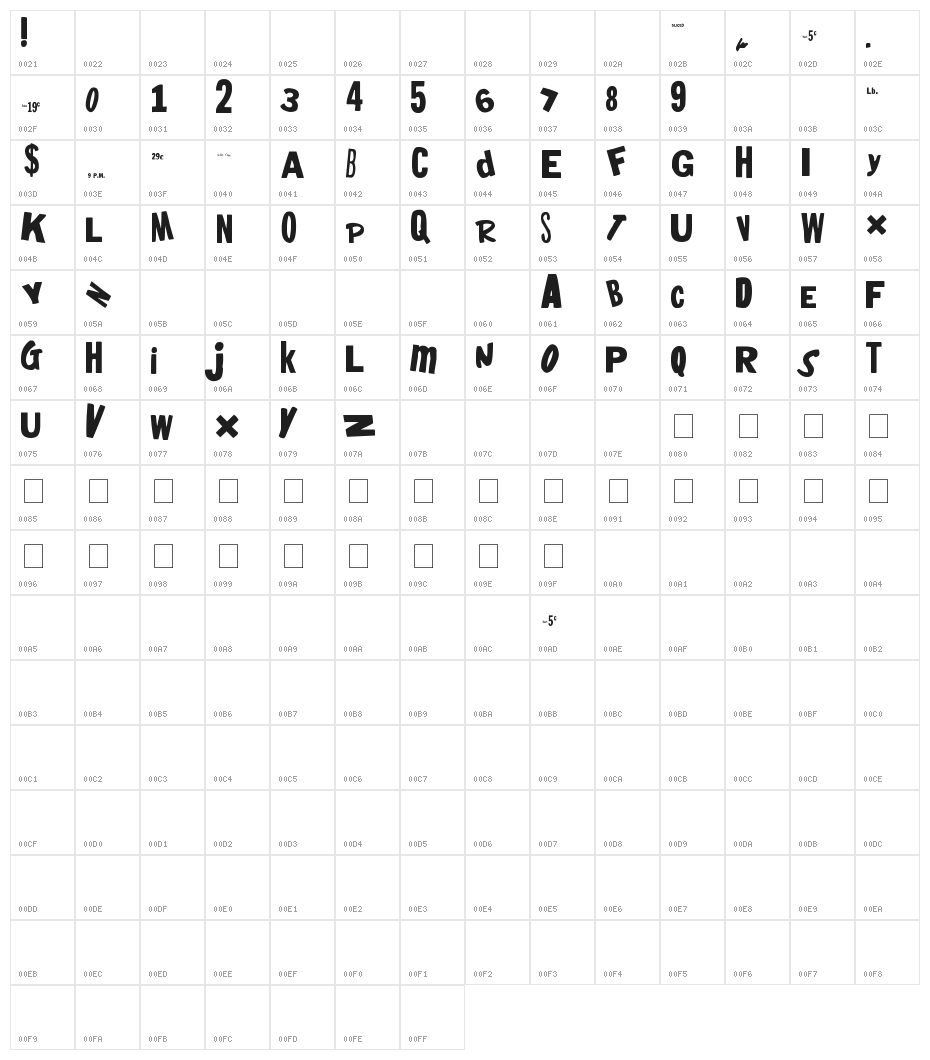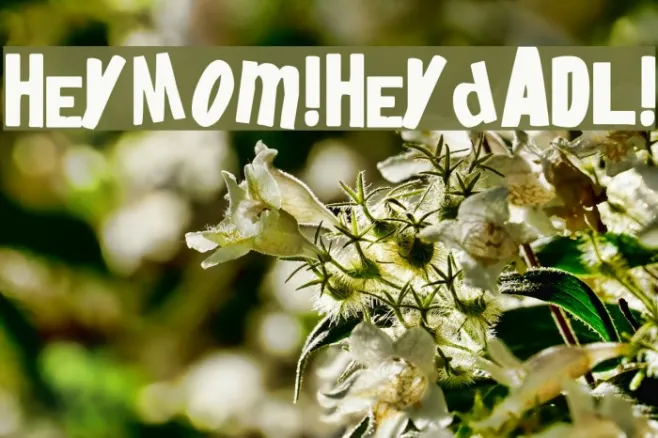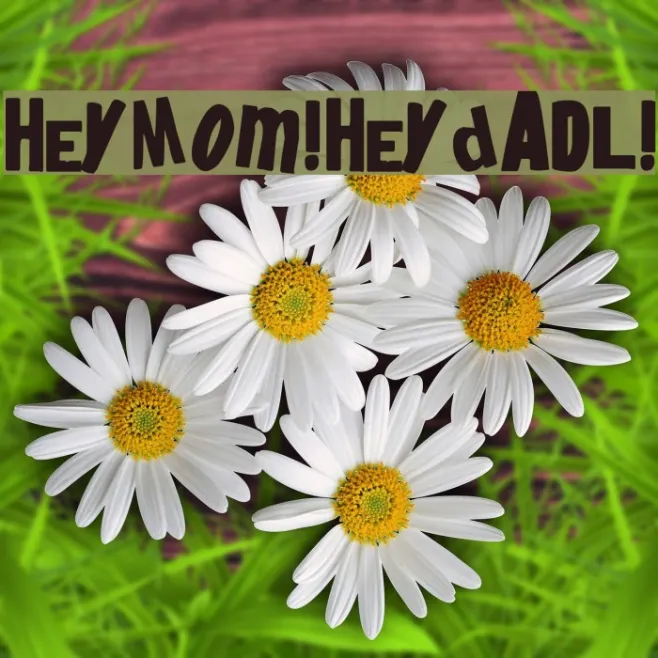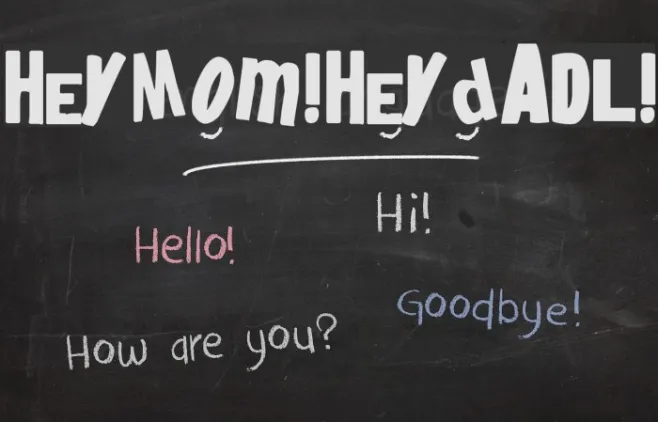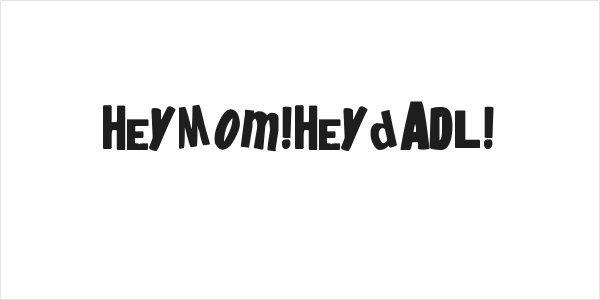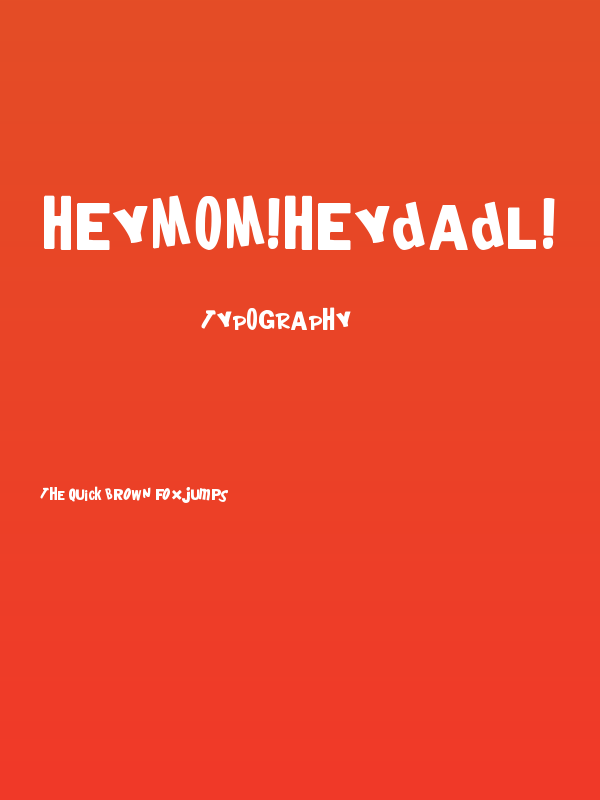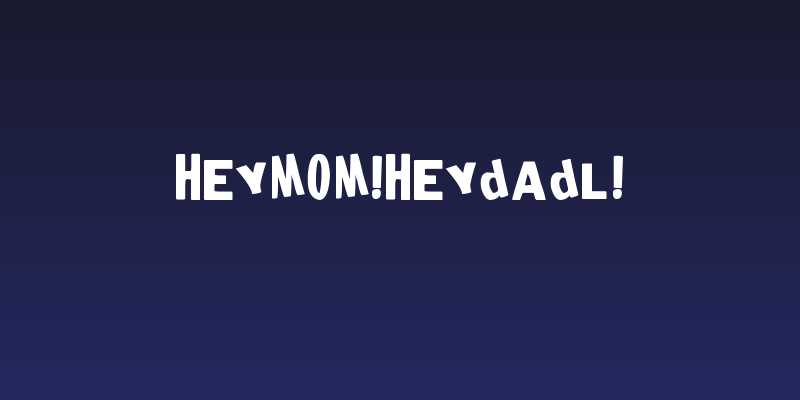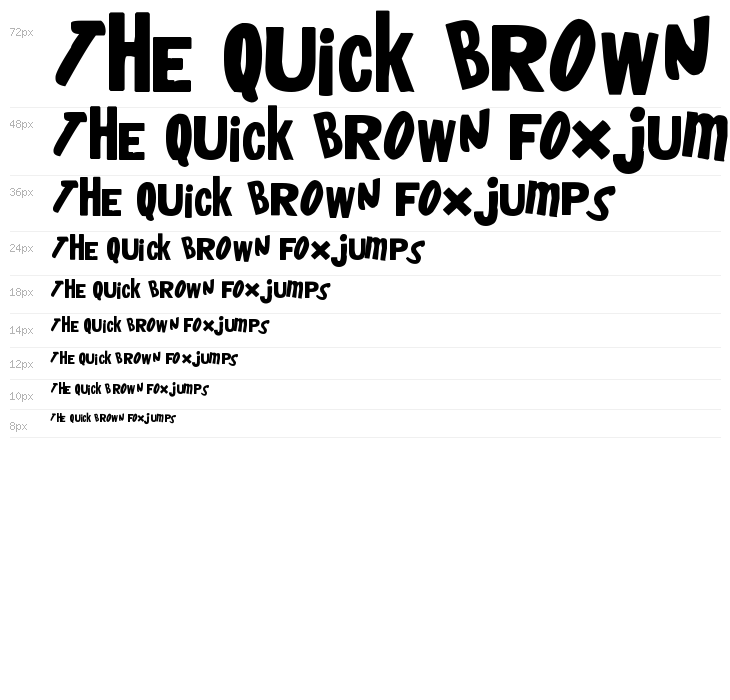
heyMom!heyDadl! Font
heyMom!heyDadl! Description
This playful and bold font features a quirky, hand-drawn style with exaggerated curves and uneven lines, giving it a lively and whimsical appearance. The uppercase and lowercase letters are distinct, with some characters having unique, unexpected shapes that add to the font's charm. The numbers and special characters maintain this playful aesthetic, making the font suitable for creative and informal designs. Its boldness ensures high visibility, while the irregular shapes provide a sense of movement and fun.